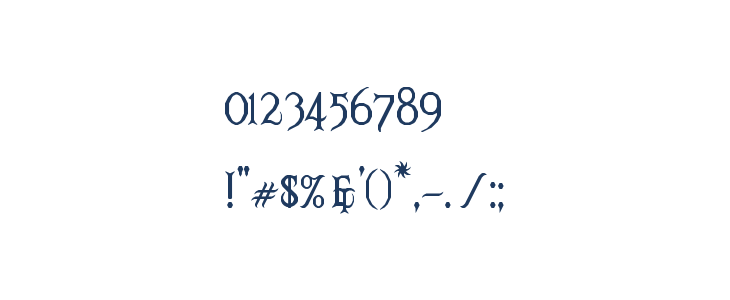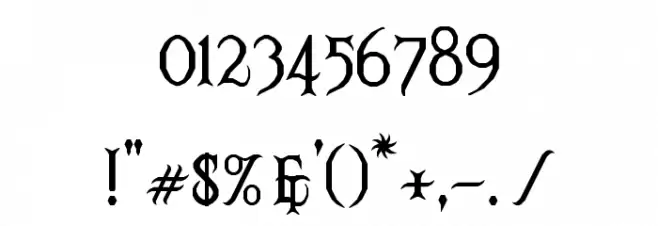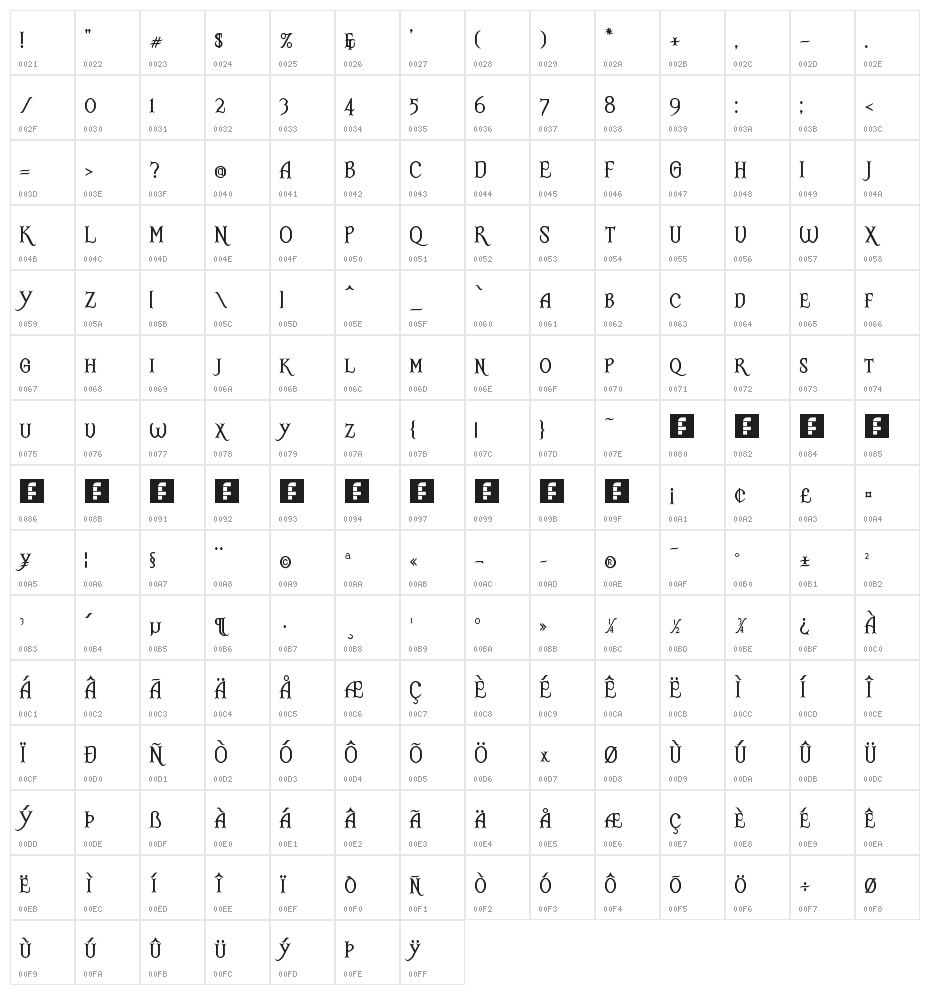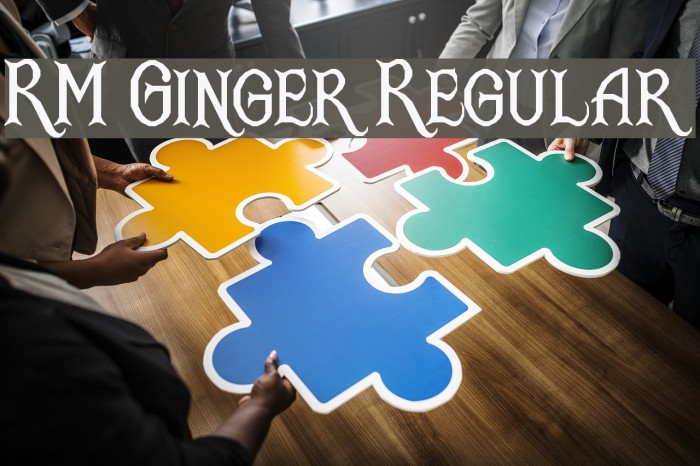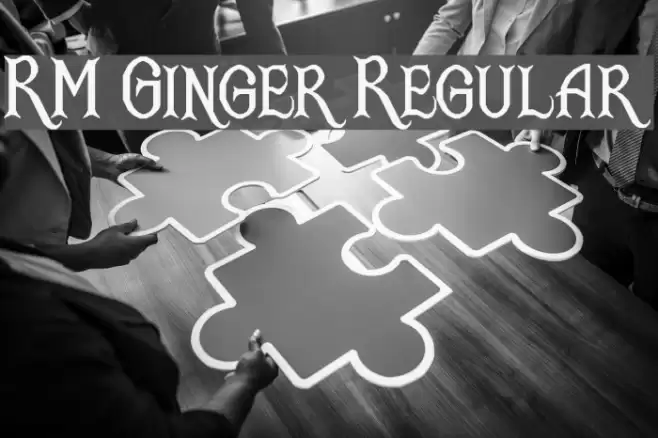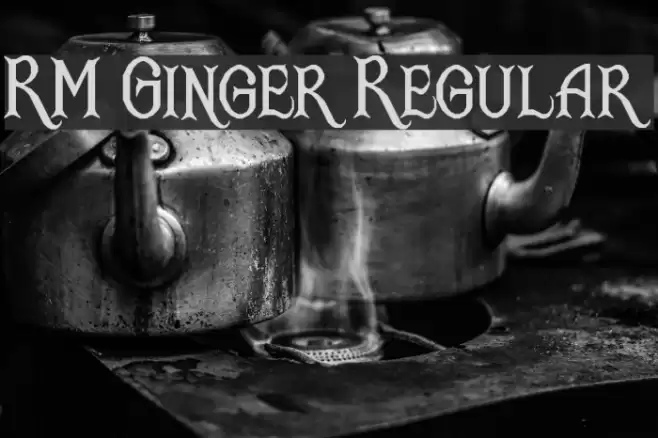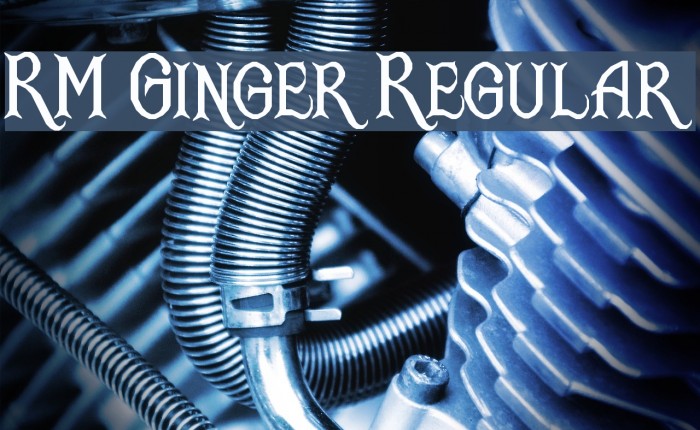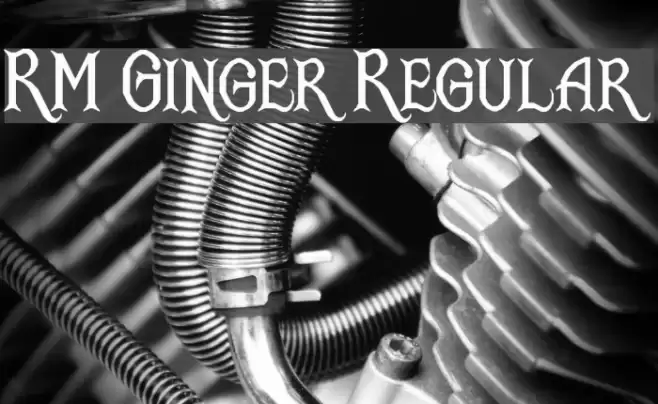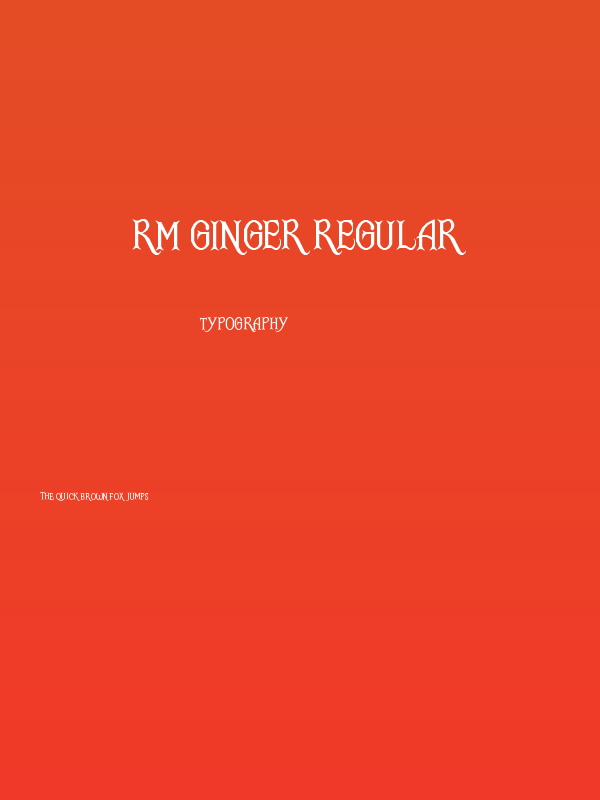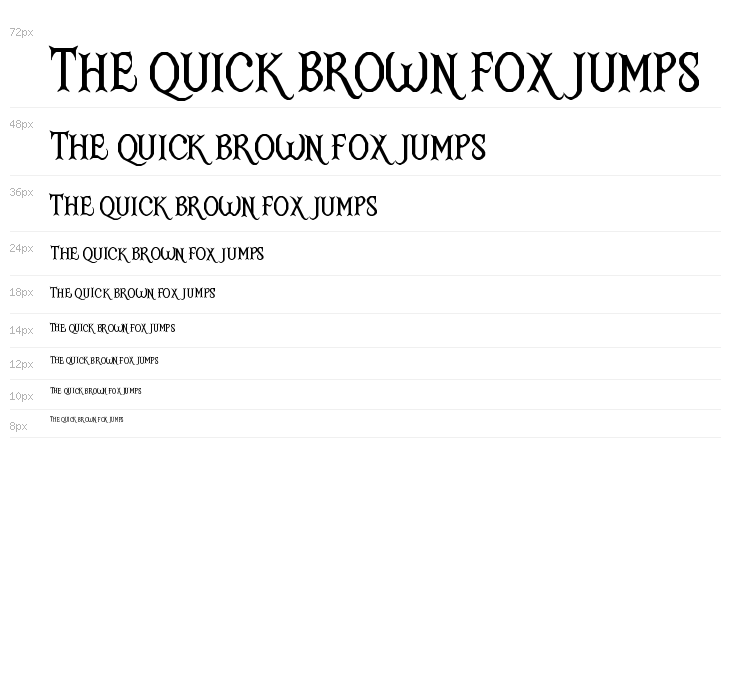
RM Ginger Regular Font
RM Ginger Regular Description
This font features a distinctive and ornate style, reminiscent of traditional blackletter typefaces. The characters are characterized by sharp, angular lines and intricate detailing, giving them a bold and dramatic appearance. The uppercase letters are particularly elaborate, with unique flourishes that enhance their visual impact. The lowercase letters maintain the same intricate design, ensuring consistency throughout the typeface. Numbers and special characters are crafted with the same attention to detail, making this font suitable for decorative purposes. Its unique style is perfect for projects that require a touch of elegance and historical flair.
| Proposed Projects | Ideal for use in branding, poster design, invitations, and any project requiring a historical or gothic aesthetic. |